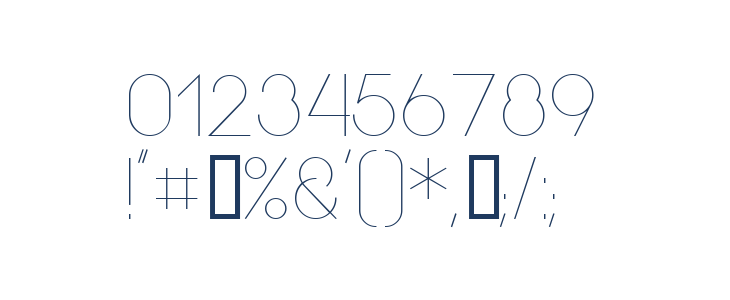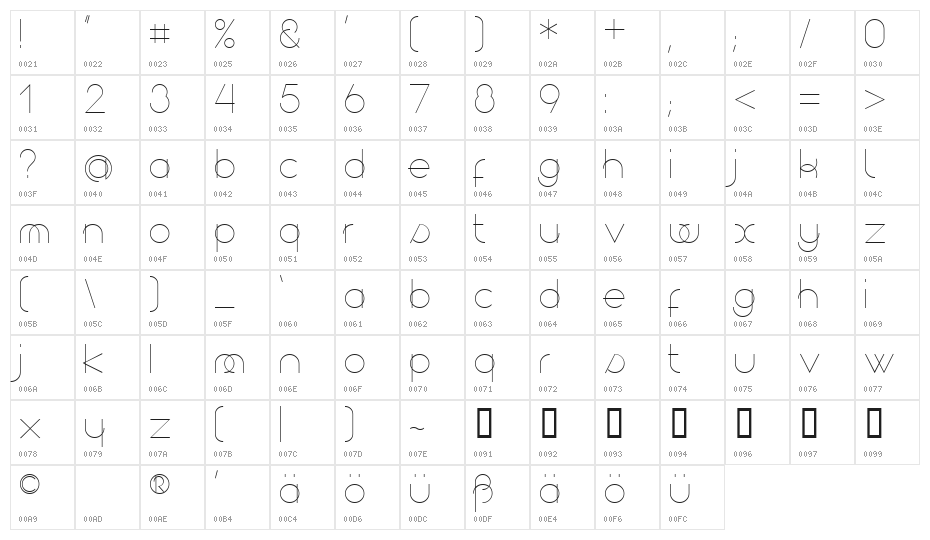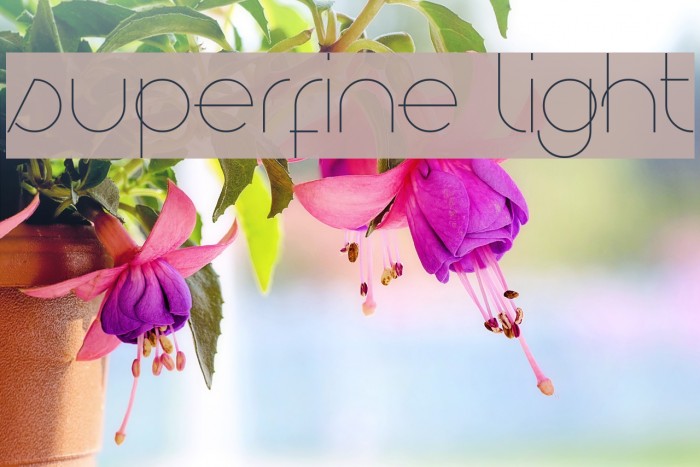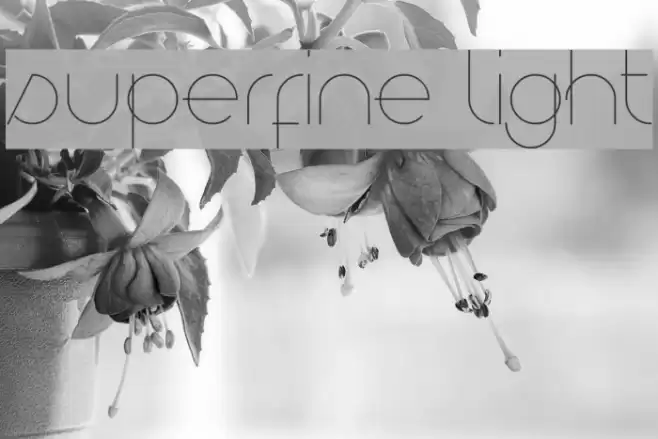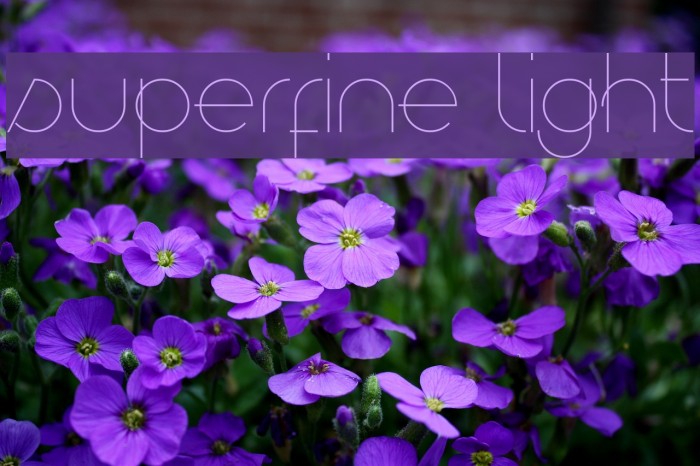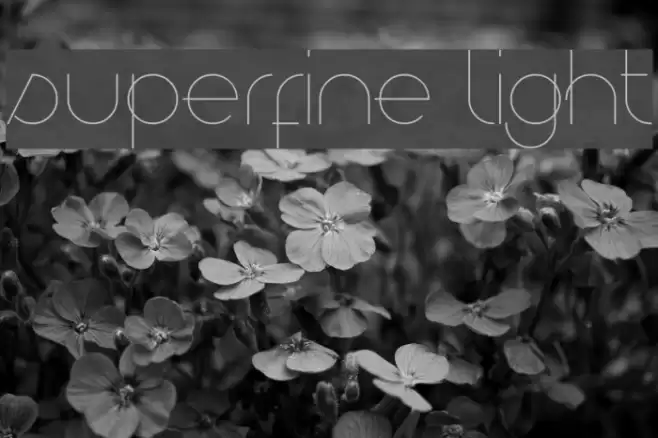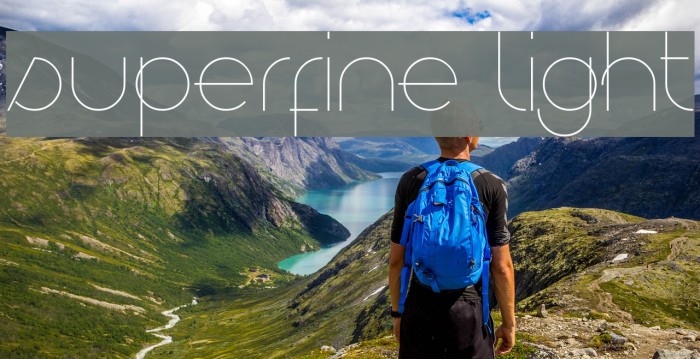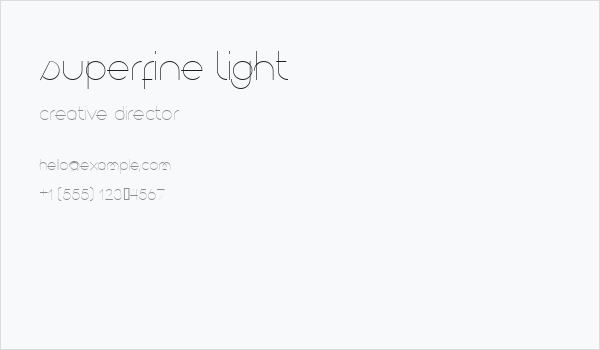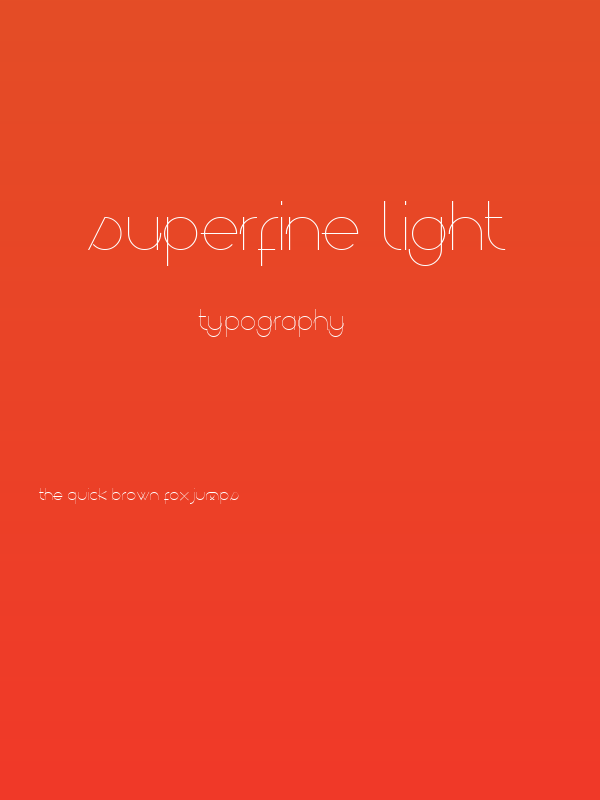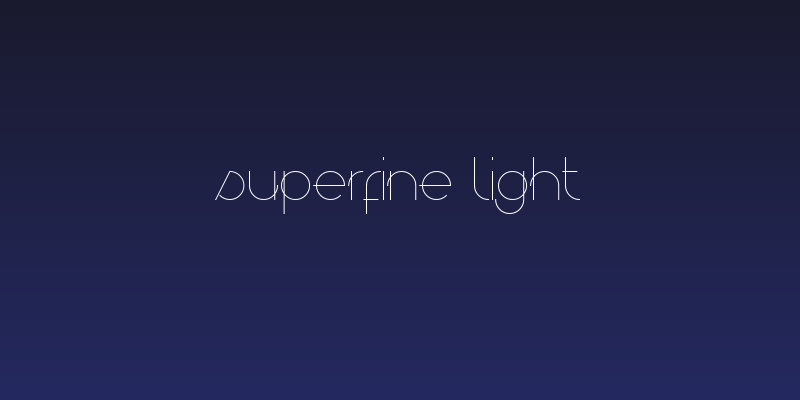
Superfine Light Font
Superfine Light Description
This font features an ultra-thin, elegant design with a modern and minimalist aesthetic. The characters are crafted with a consistent stroke width, giving it a sleek and sophisticated appearance. The uppercase and lowercase letters maintain a uniform height, contributing to a clean and orderly look. The numerals and special characters are designed with the same thin strokes, ensuring a cohesive style throughout. Its geometric shapes and precise lines make it ideal for contemporary design projects where clarity and elegance are paramount.
| Proposed Projects | Ideal for fashion magazines, luxury branding, minimalist posters, and modern web design. |